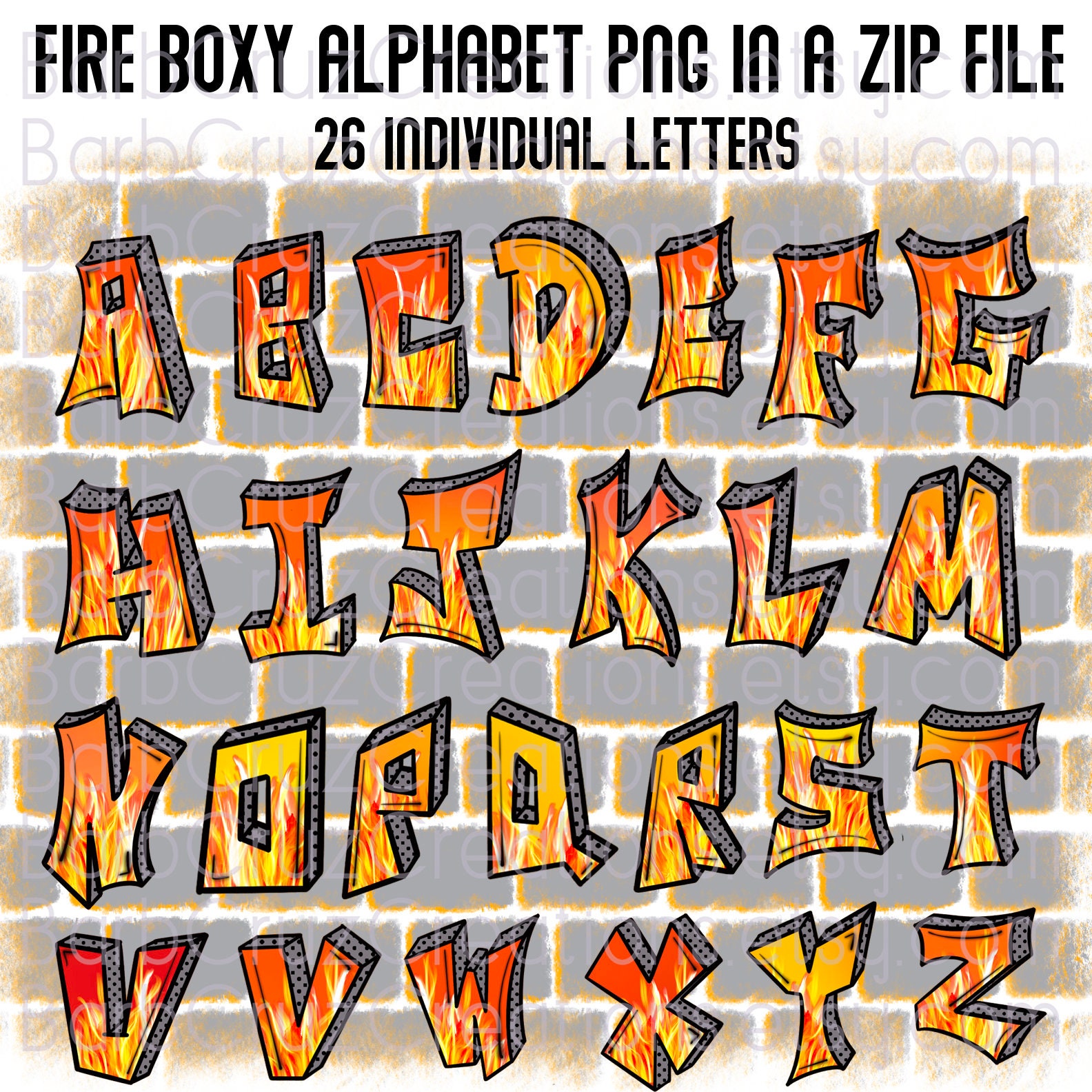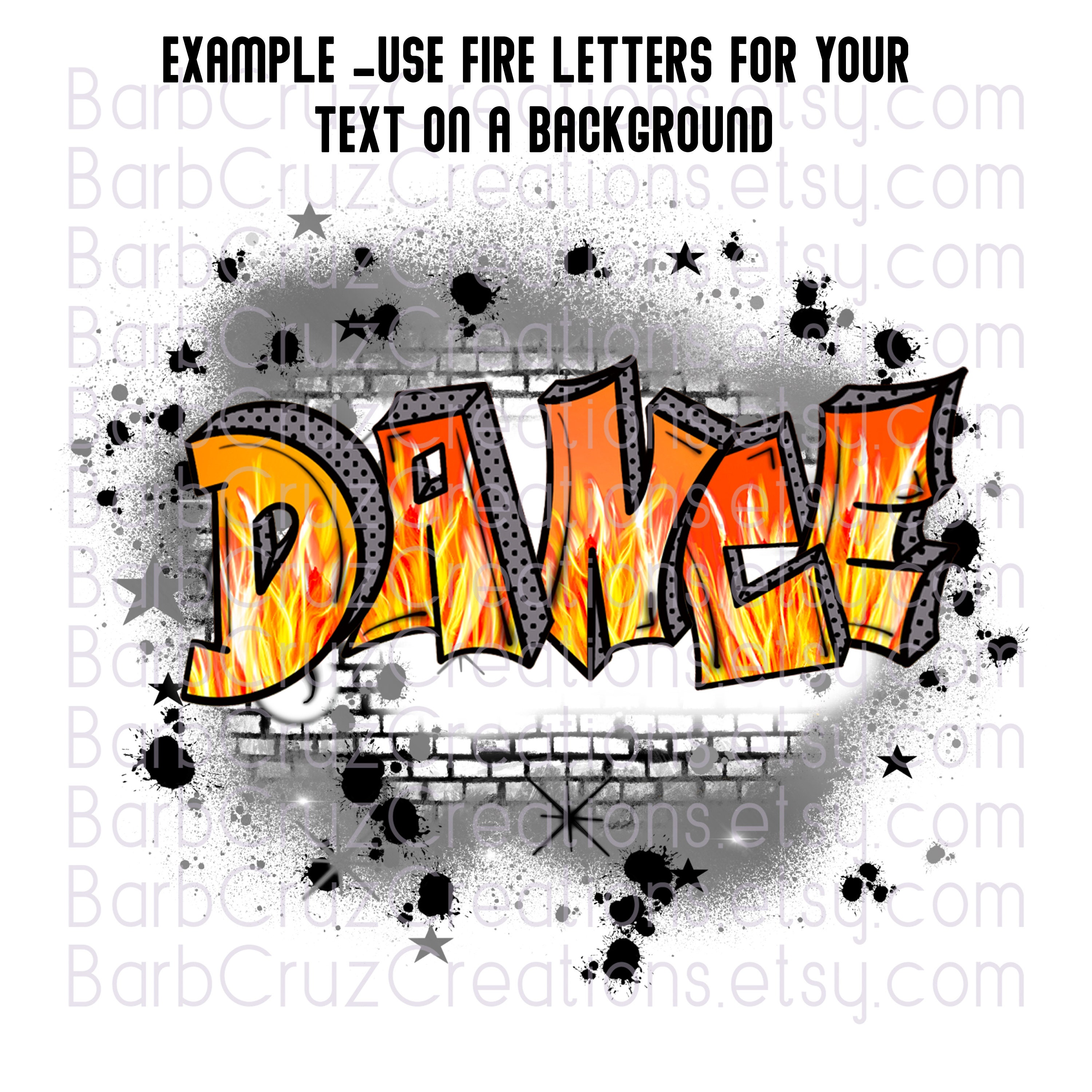
Airbrush Font, Graffiti Font, Fire, Boxy, Blazing, Letters, Hot, Flames, Alphabet Font, Sublimation, Digital Download, airbrush lettering
Fire Boxy Letters, Capital letter, Upper Case Graffiti Letter, Alphabet Airbrush Font, Sublimation Design, Digital Download, zip file, png bundle
Add to a background use for airbrush monogram, a personal message, name, image to make custom
Watercolor & Airbrush Images are transparent in some spots and can be layered to achieve darker or brighter images. Use your copy and paste feature for desired brightness.
* These are individual images. So you can layer them and place them for your desired look. (They are NOT fonts to incorporate into your computer keyboard to type out.) the images have a transparent background for layering. There are 26 images 1 for each letter in a zip file. Once you download the zip file you can extract all the images into you pictures folder for use.